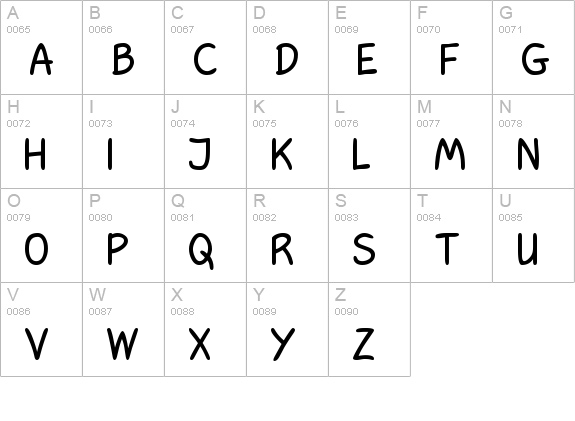
Hooteroll Font Details
Hooteroll font is a modern and stylish typeface that exudes creativity and sophistication. With its sleek lines and contemporary design, Hooteroll is perfect for a wide range of design projects, from branding to advertising to editorial layouts. The font strikes the perfect balance between elegance and readability, making it a versatile choice for both print and digital applications. What sets Hooteroll font apart is not just its aesthetic appeal, but also the fact that it is available for free. Yes, you read that right - you can download Hooteroll font for free at FontsMarket.com. This means that you can add a touch of class to your projects without breaking the bank, making it an ideal choice for designers on a budget. Whether you're working on a logo, a poster, a website, or any other creative project, Hooteroll font is sure to make a statement. Its clean lines and modern style will help your designs stand out from the crowd, while its versatility and readability ensure that your message comes across loud and clear. Download Hooteroll font today and take your designs to the next level!